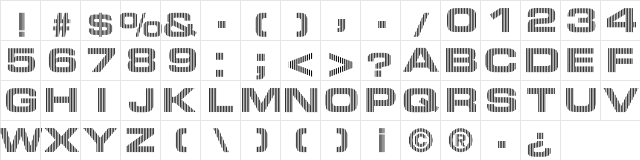
EURONEW Normal
Design Context for EURONEW Typeface
EURONEW offers clean, dependable letterforms without strong stylistic allegiance, making it a practical choice for designers who need flexibility.